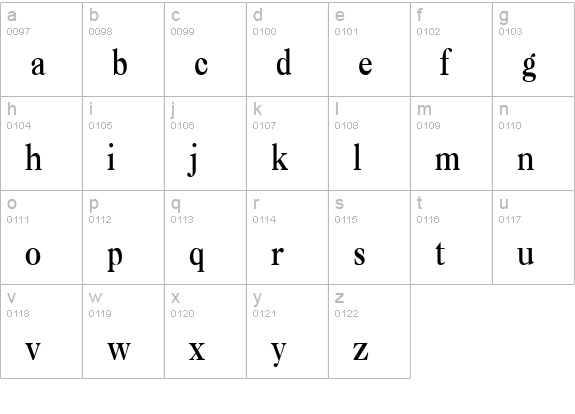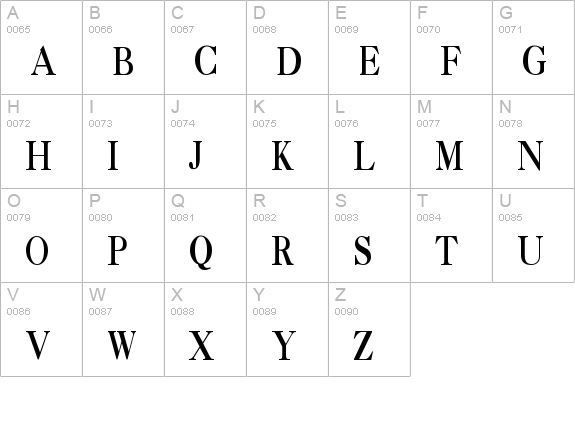
CasqueCondensed Bold Font Details
CasqueCondensed Bold is a strong, high-contrast variant in the CasqueCondensed typeface family \xE2\x80\x94 well suited to headlines, attention-grabbing titles, and strong calls-to-action.
CasqueCondensed Bold is a striking and modern font that exudes strength and confidence. With its bold and condensed design, this typeface commands attention and makes a powerful statement. The sharp lines and clean edges of CasqueCondensed Bold give it a contemporary and sleek appearance, perfect for making a bold impact in any design project. This versatile font is ideal for headlines, titles, logos, posters, and any other projects where you want to make a strong impression. The bold weight of CasqueCondensed Bold ensures that your message will stand out and grab the viewer's attention. Best of all, CasqueCondensed Bold is available for free download at FontsMarket.com. Whether you're a designer looking for a powerful font to add to your collection or a business owner in need of a font that will make your brand stand out, CasqueCondensed Bold is the perfect choice. Download it today and take your designs to the next level with this sleek and impactful typeface.